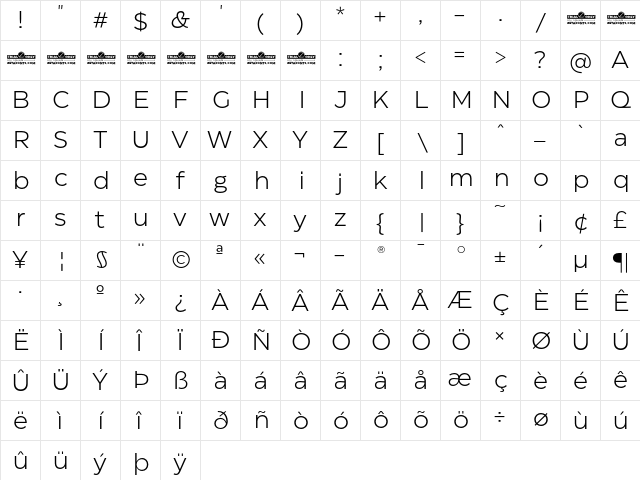
Eastman Trial Regular Offset Font Preview
Eastman Trial Regular Offset
Eastman Trial Regular Offset Font Details
| Style | Regular Offset |
| Foundry | Zetafonts |
| Designer | Francesco Canovaro |
Design Context for Eastman Trial Typeface
Eastman Trial takes a measured approach to typography — its balanced proportions and neutral character make it a reliable workhorse for both digital and print work.